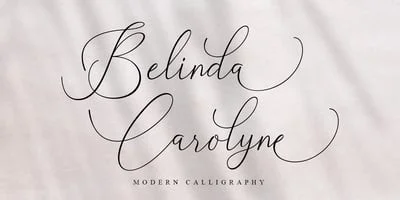
Belinda Carolyne Font is perfect for elegant wedding invitations, luxury brand logos, high-end fashion magazines, sophisticated beauty product packaging, premium jewelry catalogs, upscale restaurant menus, boutique hotel signage, exclusive event programs, romantic greeting cards, and refined stationery designs.
What makes Belinda Carolyne Font exciting is its graceful elegance and romantic sophistication that captures the essence of timeless beauty. This exquisite typeface features flowing, feminine curves with delicate flourishes that create an atmosphere of luxury and refinement. The font's carefully balanced letterforms blend classic calligraphy traditions with modern design sensibilities, making it perfect for brands seeking to convey elegance, romance, and premium quality.
The Belinda Carolyne Font family includes elegant variations: Regular, Bold, Light, Italic, Script, and Ornamental versions. Each style maintains the core sophisticated aesthetic while offering different levels of decorative appeal and functionality. The complete family provides designers with comprehensive typographic solutions for creating memorable, high-end visual communications.
For projects requiring feminine elegance and romantic appeal, Belinda Carolyne Font delivers exceptional results. This stunning typeface elevates any design with its graceful presence and sophisticated charm. Its versatility makes it suitable for both intimate personal projects and luxury commercial applications. Download Belinda Carolyne Font today and transform your designs with this remarkable typeface that perfectly combines romantic elegance with contemporary functionality and timeless appeal.